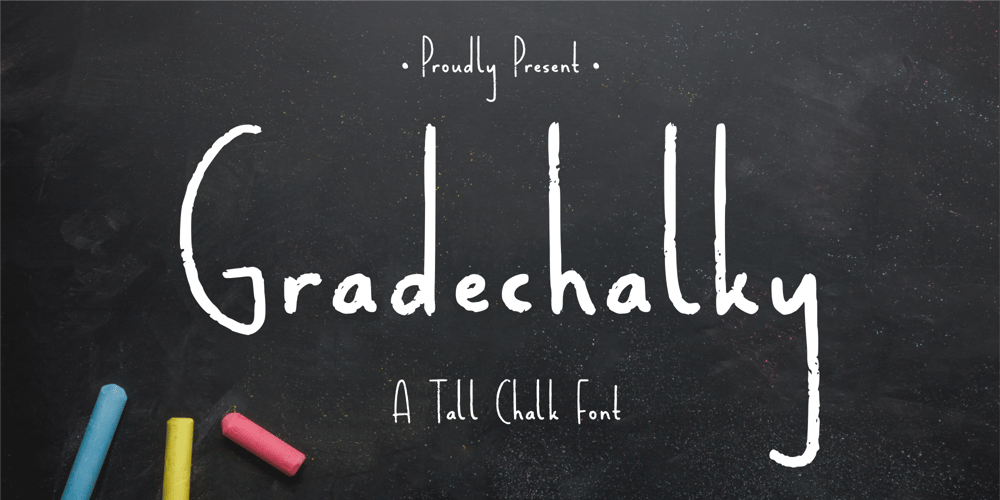
Gradechalky
Gradechalky font
Gradechalky Font Family was designed by Fachrizal Yusuf and published by Allouse Studio. Gradechalky contains 1 styles and family package options. Proudly Present, Gradechalky A Tall Chalk Font.Gradechalky is perfect for any titles, logo, product packaging, branding project, megazine, social media, wedding, or just used to express words above the background.Gradechalky also come with Multi-Lingual Support.Enjoy the font, feel free to comment or feedback, send me PM or email. Thank You!